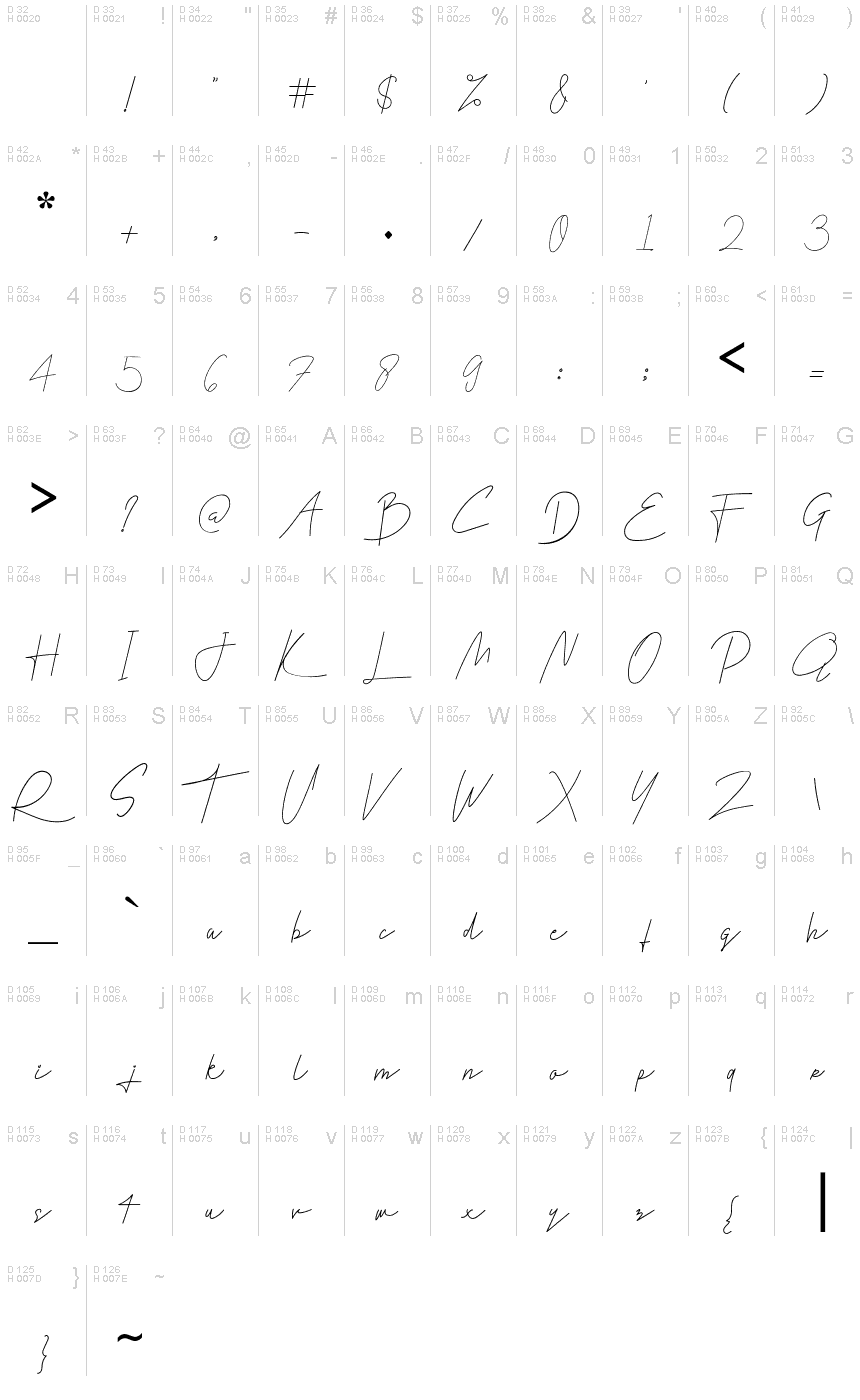
Galla Signature
Galla Signature, designed by Hasana Font, is the epitome of elegance and sophistication. This handwritten signature font boasts an extra-light weight, giving it a delicate and refined appearance. Ideal for wedding invitations, luxury branding, and high-end fashion campaigns, Galla Signature exudes a sense of exclusivity that sets it apart from other typefaces. Its flowing curves and graceful strokes make it perfect for adding a touch of class to any project. Whether you're designing a logo or crafting a social media post, Galla Signature is the perfect choice for those seeking to elevate their aesthetic with an air of timeless beauty.